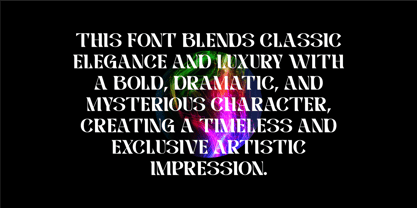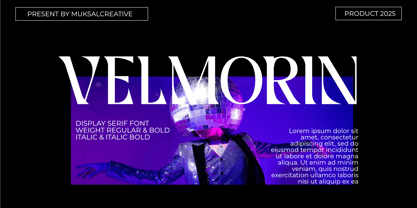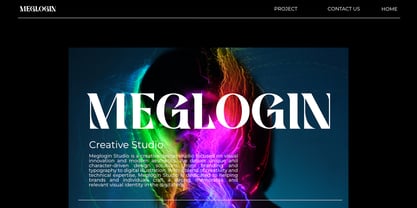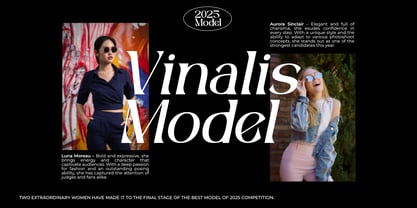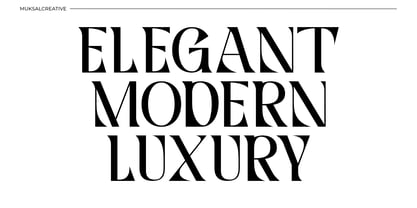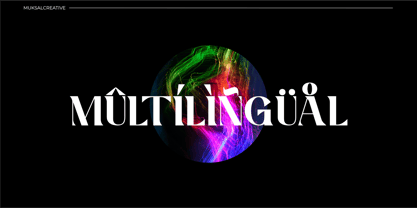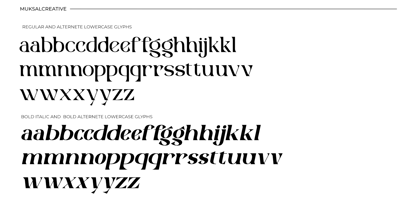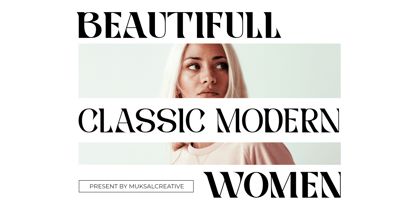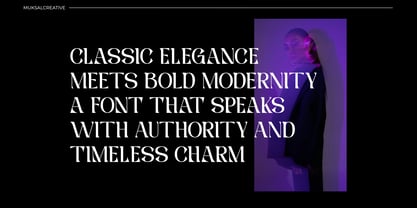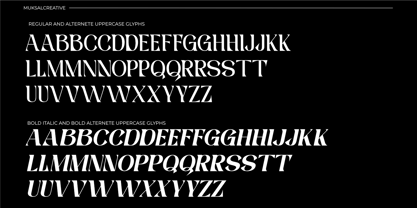
Velmorin
by Muksal Creatives
The Velmorin Font Family was designed by Muksalmina and published by Muksal Creatives. Velmorin contains 4 styles and family package options. More about this family
This font strikes the perfect balance between classic style and modern luxury. With a bold, dramatic, and slightly mysterious character, every detail is designed to create a strong and artistic impression. Its elegant letterforms make it ideal for luxury branding, editorial design, exclusive packaging, and any project that demands high aesthetic value.
The font is available in Regular and Bold, offering flexibility for both refined elegance and striking typography. Additionally, both styles come with Italic versions, adding dynamism and a sophisticated touch to the typography. With these variations, this font delivers a timeless and exclusive feel for a wide range of design applications.